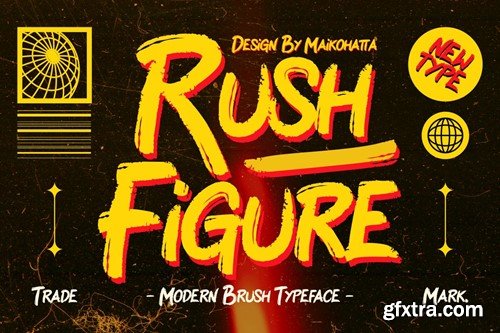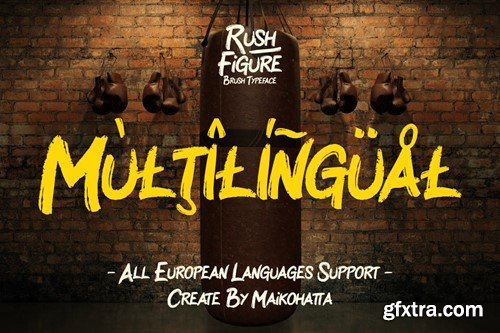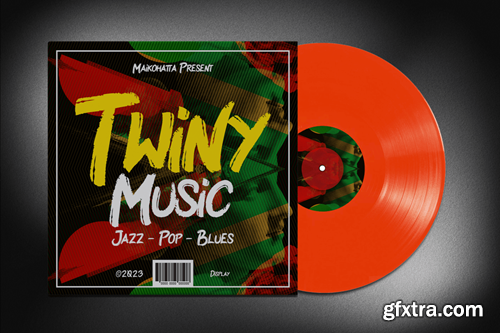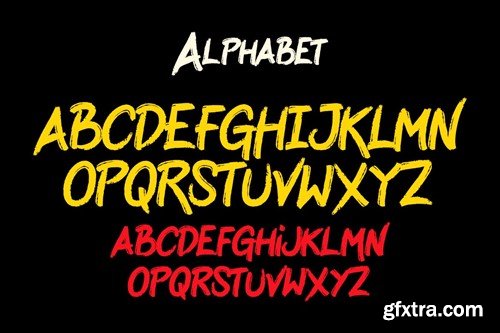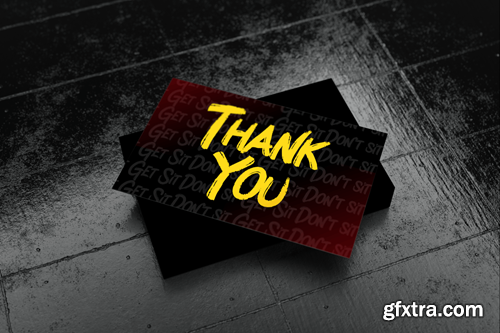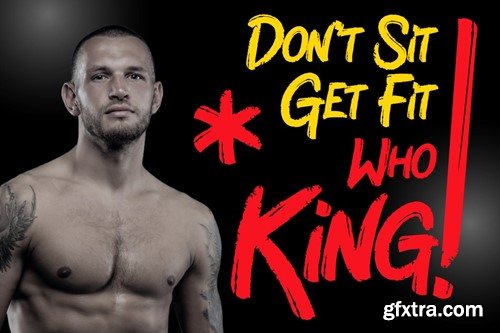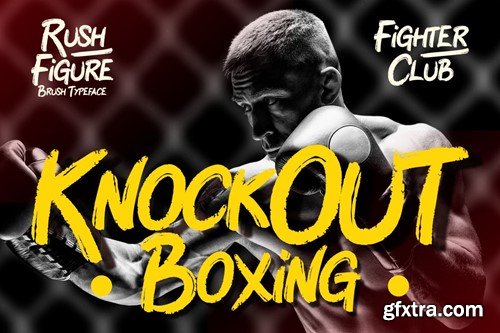
Rush Figure - Modern Brush Typeface
Introducing our new product Rush Figure - Modern Brush Typeface This font features a combination of boldness and readability, merging the expressive brush handwriting style with contemporary design elements. It creates a fresh, dynamic look that aligns seamlessly with modern design aesthetics and is frequently employed in logo design, marketing materials, signage, and various projects requiring a contemporary and expressive touch. Its design excellence makes it a popular choice for conveying messages with a dynamic and engaging style. available